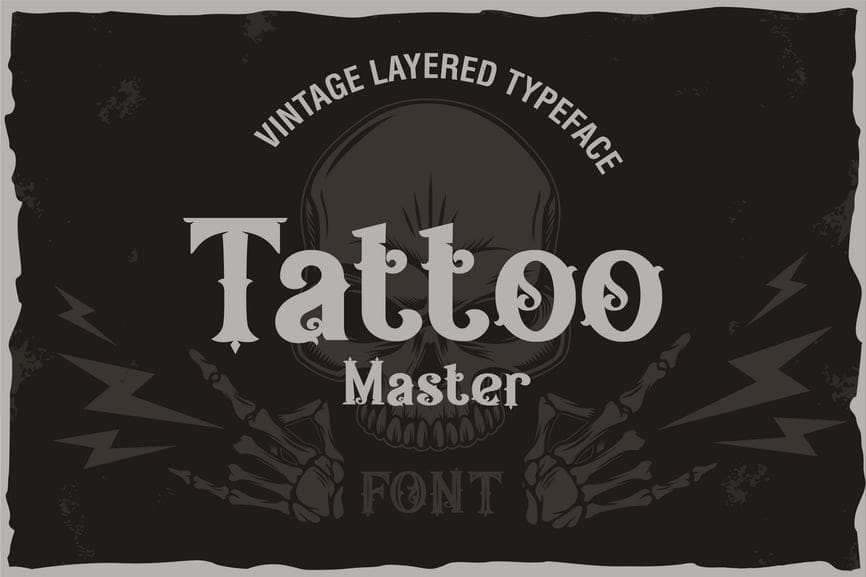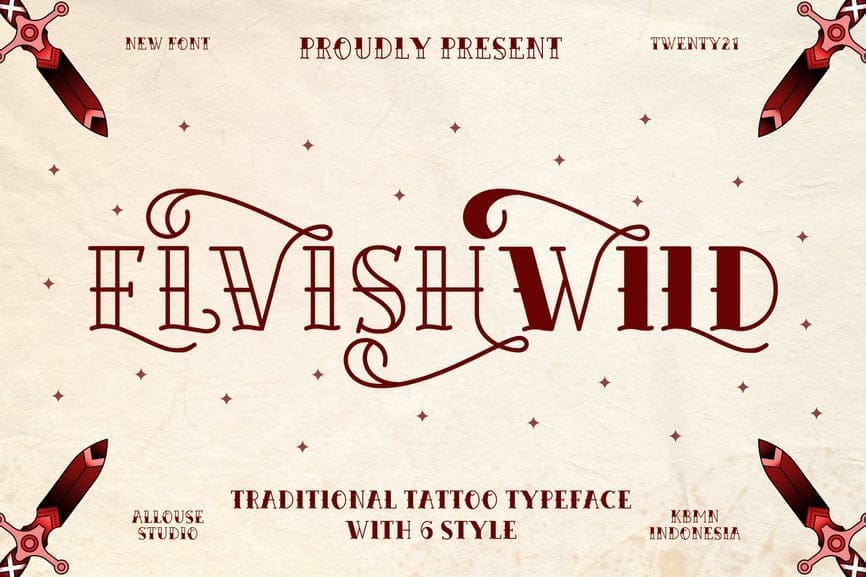
When you think of tattoo lettering, bold scripts and edgy gothic fonts often come to mind. But there’s another timeless style that has been quietly making waves in the tattoo world: serif fonts. Known for their little “feet” or decorative strokes at the ends of letters, serif typefaces carry a sense of tradition, strength, and elegance that makes them perfect for tattoos.
Why are serif fonts for tattoos becoming more popular? Simple—tattoos are meant to last forever, and serif fonts have a classic appeal that never goes out of style. They offer excellent readability, even in smaller sizes, and bring a level of sophistication that works well for meaningful words, names, or inspirational quotes. Whether you want something bold and commanding across your chest or subtle and delicate on your wrist, serif fonts adapt beautifully to different placements and designs.
In this guide, we’ll dive into the best serif fonts for tattoos and show you why this classic lettering style deserves a spot in your next ink design. From vintage-inspired fonts with old-world charm to modern serif typefaces that feel sleek and minimal, you’ll discover plenty of options to match your unique style and story.
Now that we’ve explored why serif fonts make such a powerful choice for tattoos, let’s dive into some of the best serif fonts for tattoo lettering. Each of these fonts brings its own character—whether bold and commanding, delicate and refined, or vintage-inspired with an old-school charm.
This list is designed to help you find the perfect serif tattoo font for your next design, whether you’re planning a meaningful quote, initials, or a striking statement piece. For every font, we’ll cover what makes it unique, why it works well as a tattoo, and the types of designs it’s best suited for.
Young Heart is a decorative serif typeface with heart-shaped serifs and energetic curves. This characteristic makes it a good choice for tattoos that want a playful and whimsical feel. The font also has a western style, which can pair well with traditional or vintage tattoo designs.
It is important to note that this font may be difficult to read at smaller sizes due to the decorative elements.
Briliants is a serif typeface with classy, elegant and vintage feel characteristics. This makes it a good choice for tattoos that you want to have a timeless and sophisticated look. Briliants uses a classic serif design with clear and well-defined letterforms. This ensures that your tattoo will remain readable even at smaller sizes. Because of its classic design, Briliants pairs well with a variety of tattoo styles, from traditional to modern. The flourishes on the ends of the strokes add a touch of elegance and sophistication to the font. This can be a good choice if you want a tattoo that looks polished and put-together.
Everlines is an all-caps serif font with an elegant touch and a classic feel. The font is inspired by 19th-century typography, old fancy lettering, vintage illustration, and Victorian calligraphy. These characteristics make it a good choice for tattoos that you want to have a vintage or classic look.
The Royal King font is a serif display typeface with a vintage and decorative style. It has bold and thick letterforms, with decorative flourishes on some of the characters. This makes it a good choice for tattoos that want to convey a sense of luxury, elegance, or tradition. It can also be used for tattoos that are bold and eye-catching.
Anima is a decorative uppercase display font. Each letter is meticulously crafted with large, sharp serifs and intricate details that give it a mystical or occult look. This makes it a well-suited choice for tattoos that want to convey a sense of mystery, spirituality, or the supernatural.
Justify font package is a collection of six different fonts inspired by tattoo lettering. The fonts vary in style, but all share some common characteristics that make them well-suited for tattoos.
Tattoo Beast is an elegant, distinct and highly detailed vintage blackletter font. Blackletter fonts are known for their bold and decorative characteristics, and Tattoo Beast is no exception. The font features thick strokes with sharp contrasts and ornate details. These characteristics make it a good choice for tattoos that you want to have a bold, dramatic, or vintage look.
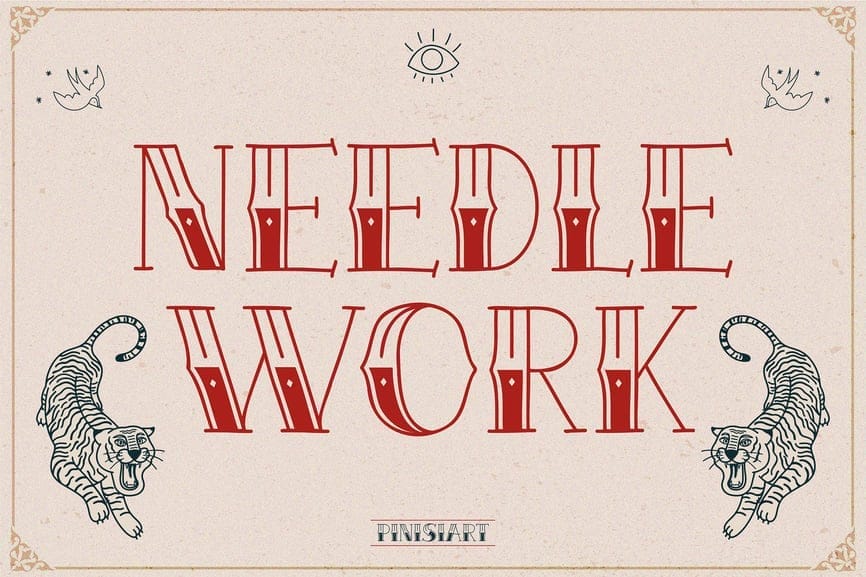
Needlework is a bold, decorative display typeface explicitly designed to capture the classic aesthetic of Old School Tattoo Design and vintage lifestyle brands. Its striking characteristics include tall, condensed uppercase letterforms with prominent, thick serifs and a layered appearance—often featuring an inline or drop-shadow effect. The font incorporates decorative elements such as diamond-shaped cutouts within the strokes, giving it a distinctive retro charm. Perfect for eye-catching branding, signage, merchandise, and studio logos, NEEDLEWORK delivers a timeless impression of creativity and uniqueness, making it an excellent choice for any tattoo-inspired art or promotional material.
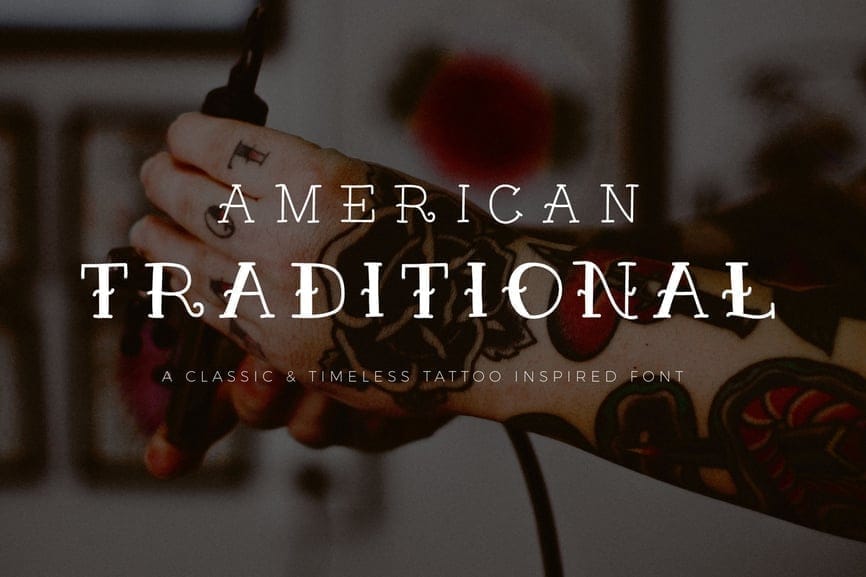
As its name suggests, "American Traditional" is a classic and timeless serif font inspired by vintage tattoo lettering. This typeface features elegant, somewhat condensed letterforms with distinct, often pointed serifs that evoke a sense of heritage and craftsmanship. It offers both a standard uppercase set and an alternative set with more decorative flourishes, particularly noticeable on characters like 'A', 'M', 'N', and 'R', allowing for versatility in design. The font also includes numerals and a full range of punctuation and symbols. With its clean lines and subtle decorative touches, American Traditional is an excellent choice for tattoos aiming for an authentic, enduring, and sophisticated old-school aesthetic.